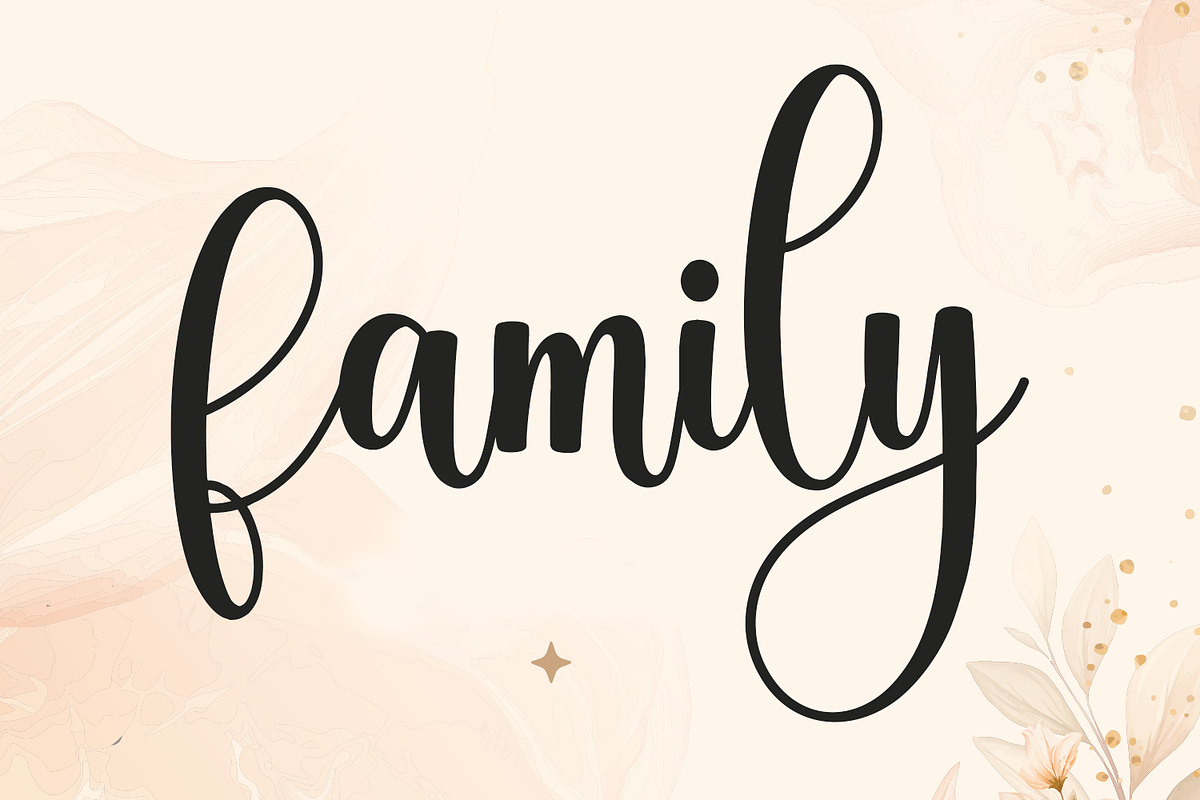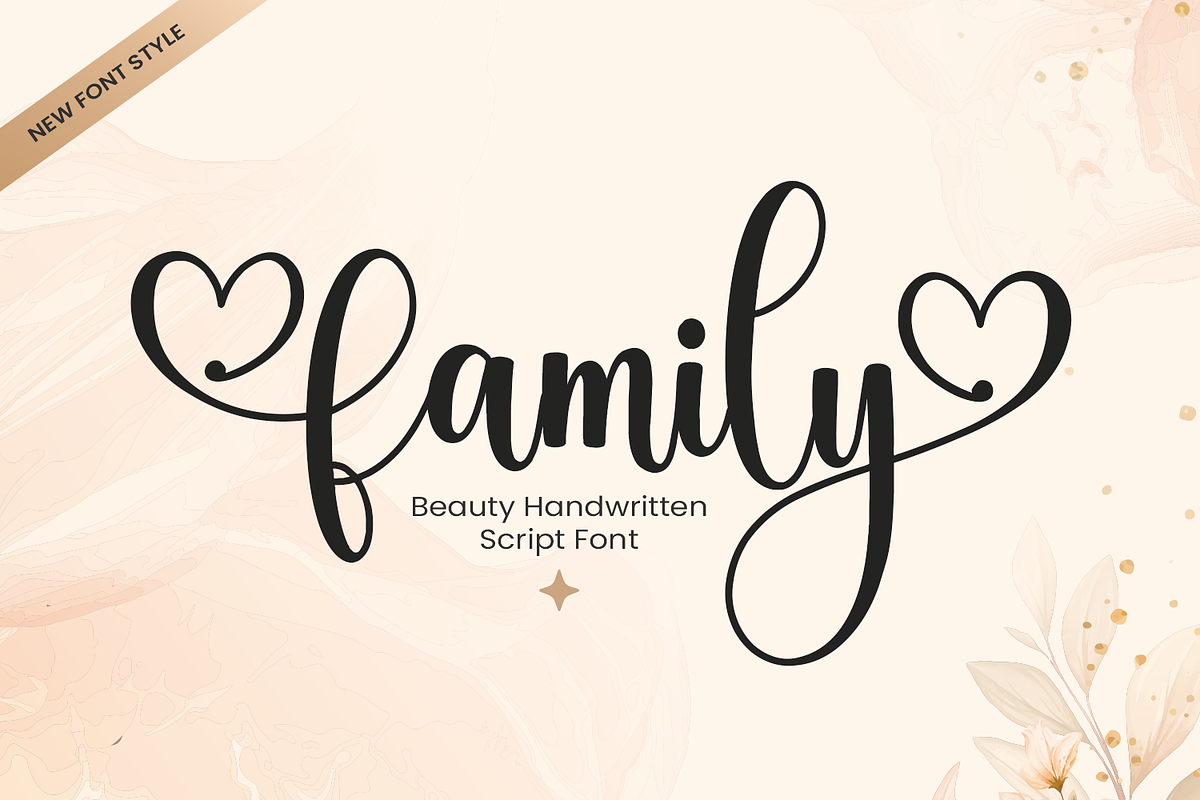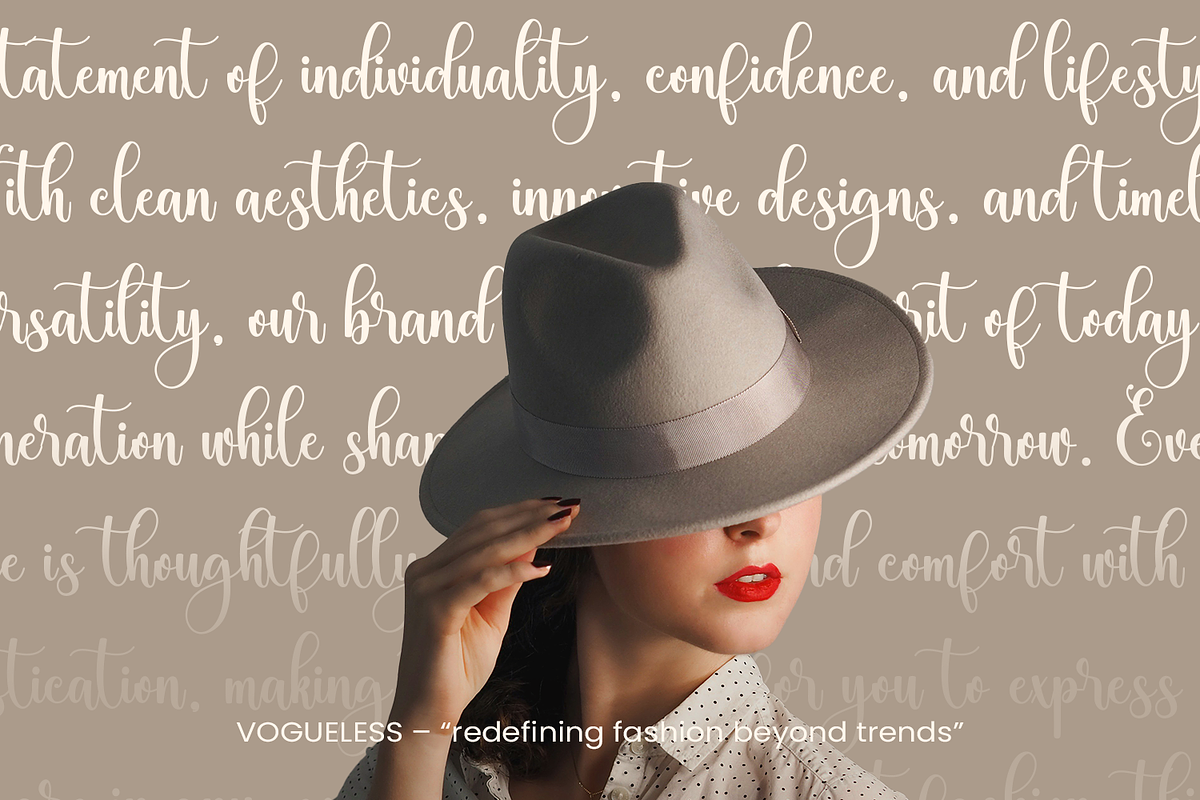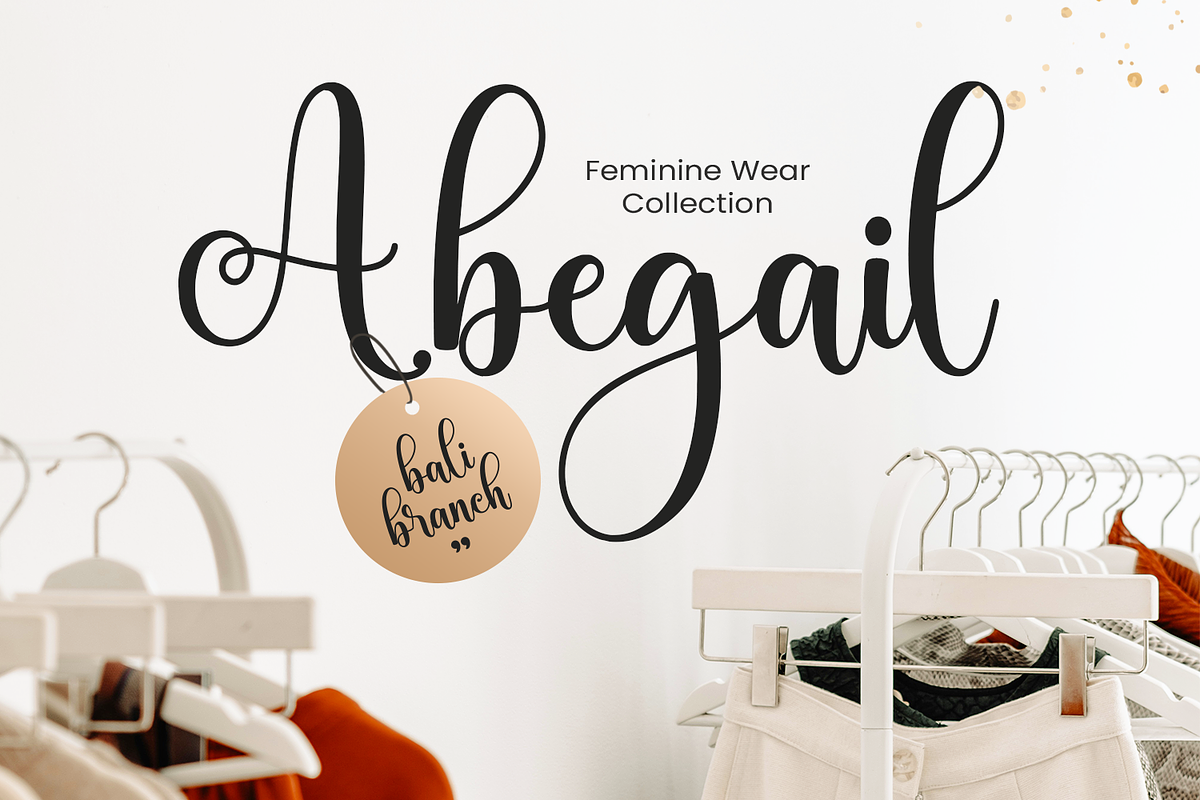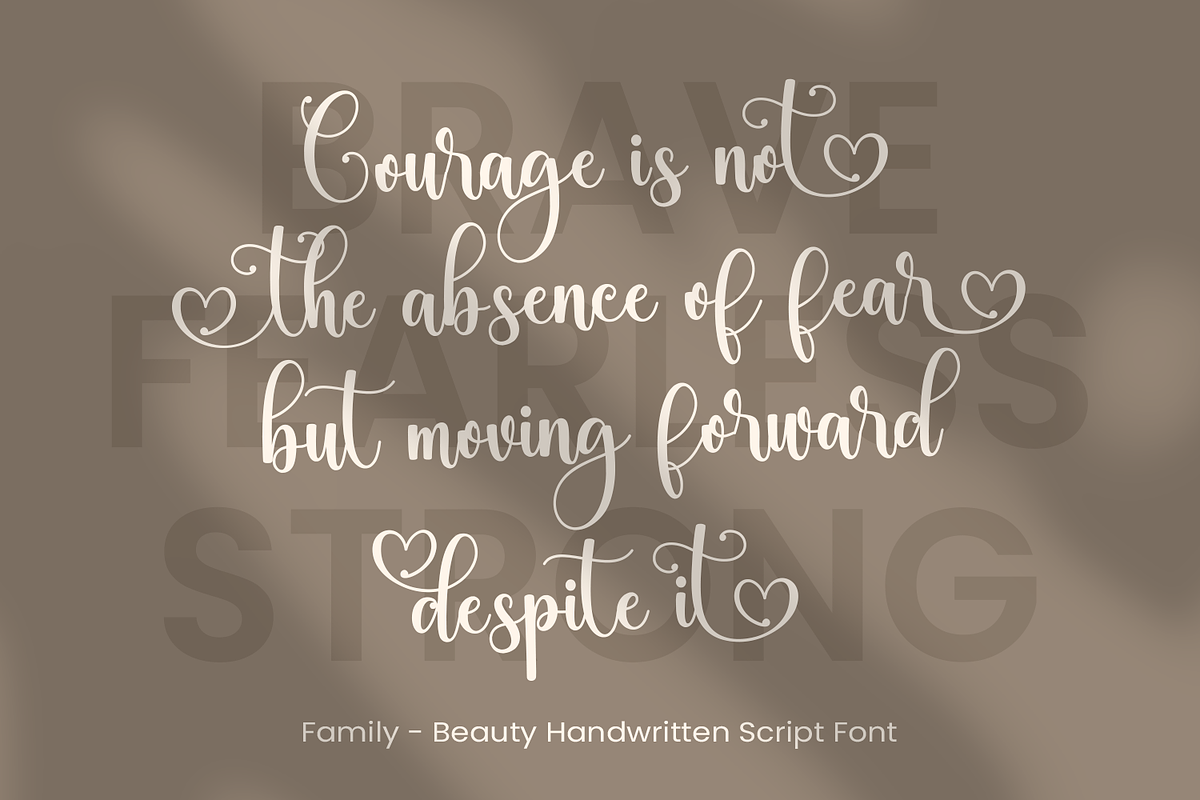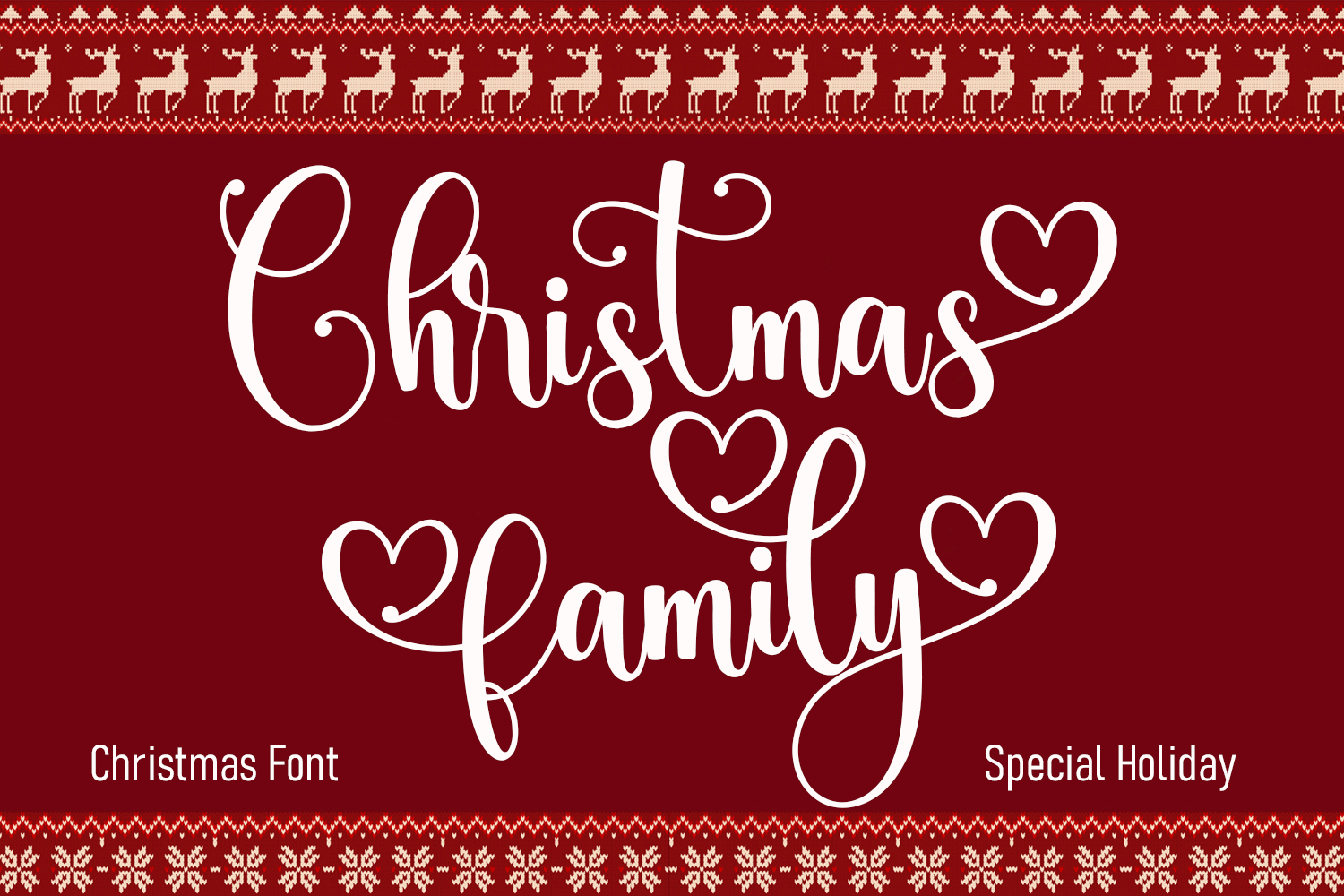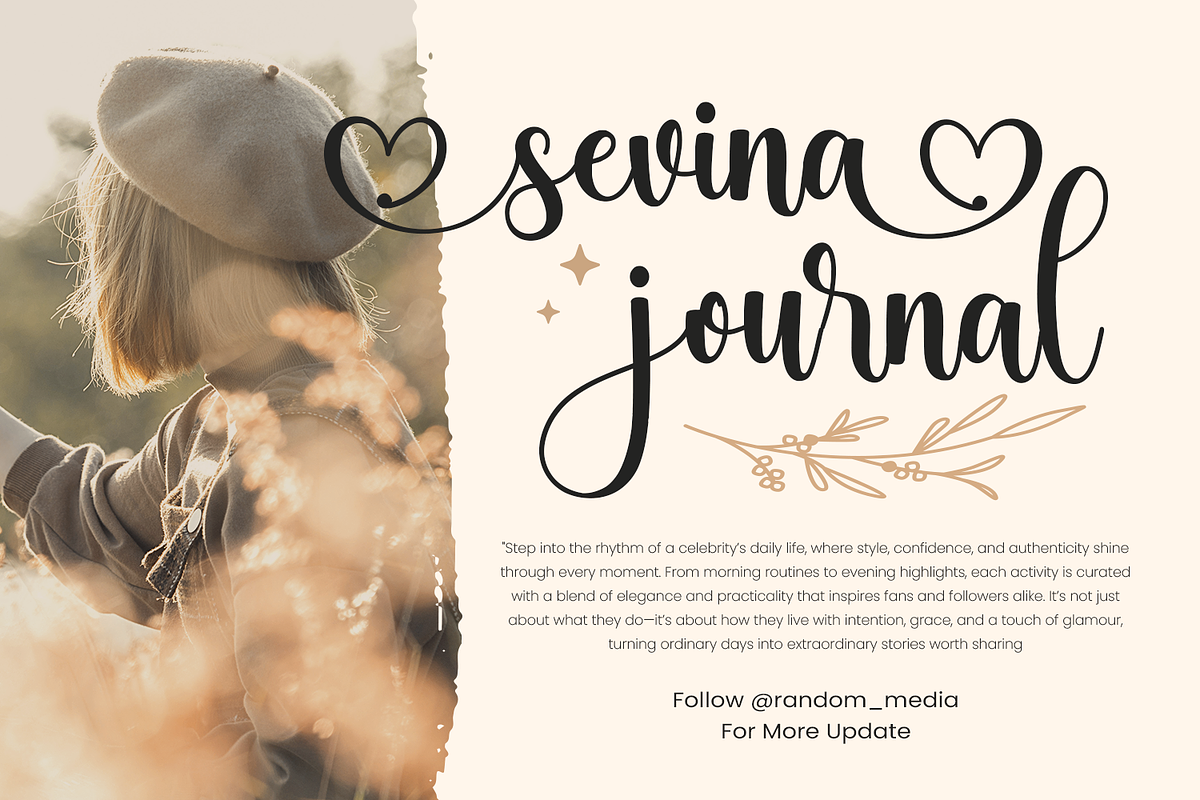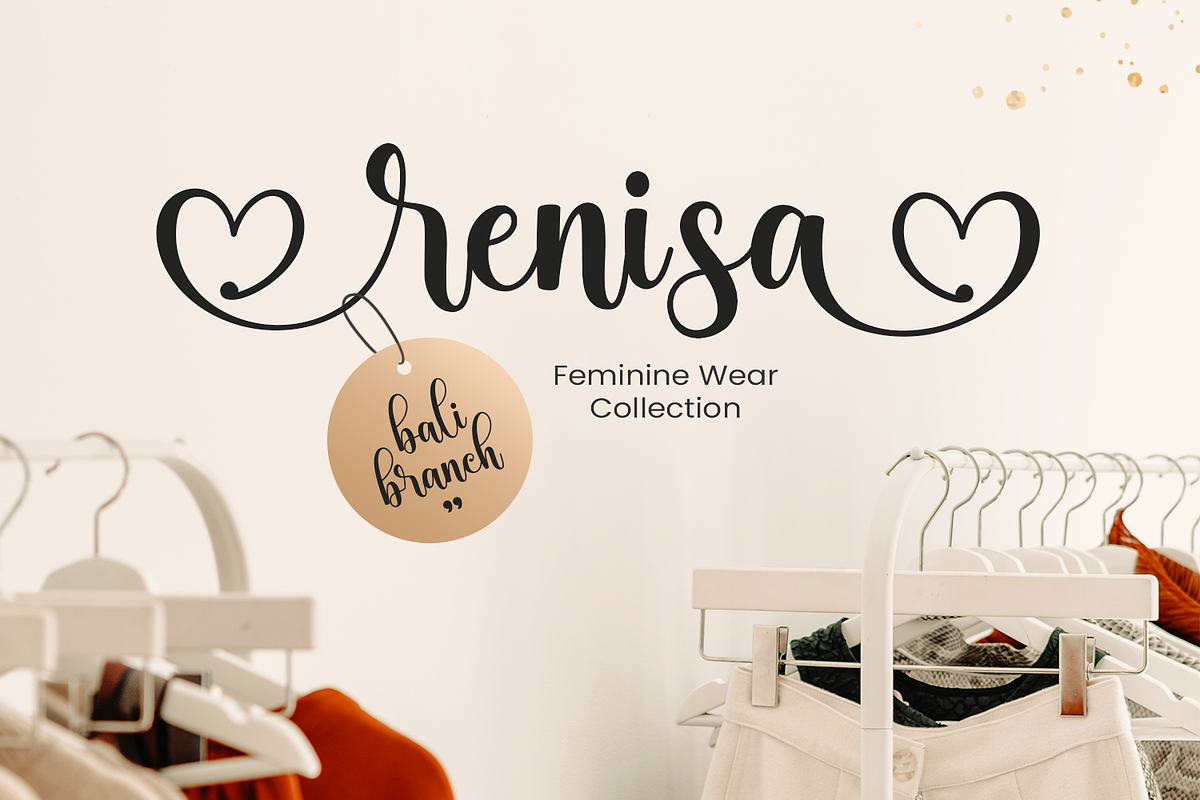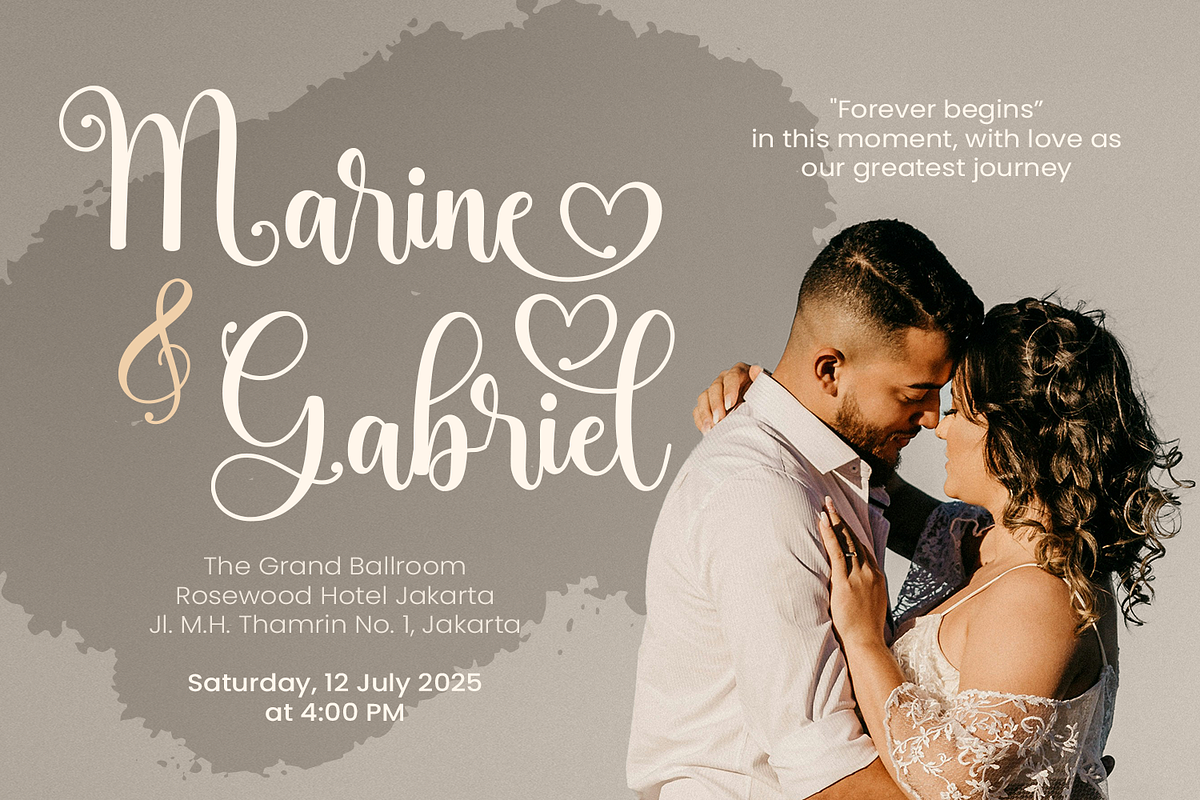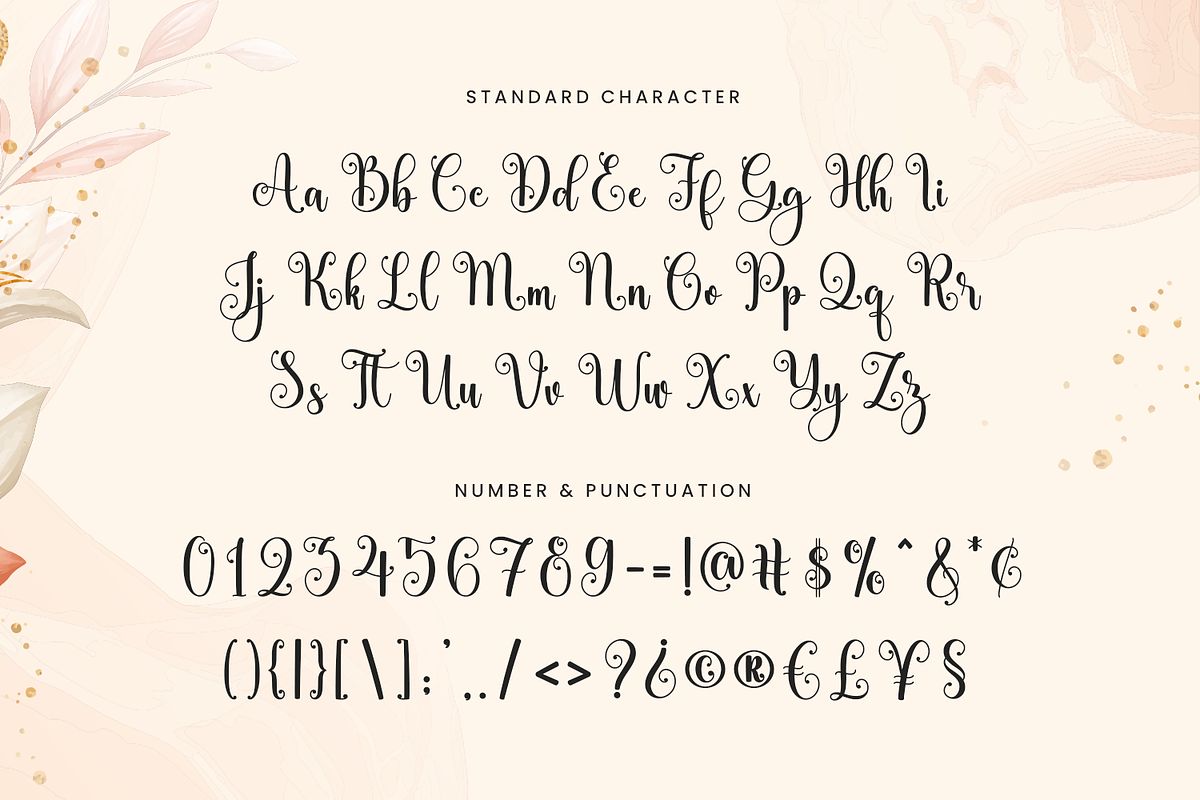
Christmas Family - Christmas Font
Christmas Family – Script Handwritten Christmas Font
Introducing Christmas Family, a warm and charming script handwritten font crafted to bring festive cheer into all your creative projects. Its smooth, flowing strokes and cozy holiday feel make it perfect for Christmas cards, Thanksgiving themes, wedding invitations, birthday designs, and seasonal crafts throughout the year. From winter celebrations to spring, summer, and autumn projects, Christmas Family adds a joyful touch to every design.
Each letter in Christmas Family is designed with beautiful beginning and ending swash tails, giving your text an elegant and decorative look. This makes it especially ideal for Cricut creations, embroidery, DIY crafts, lettering projects, and SVG designs, where graceful details can truly elevate your work.
Packed with many alternate characters and swashes, the font offers limitless stylistic combinations. You can mix and match different letter variations to create unique words, expressive titles, or standout craft pieces—all with a festive handwritten charm.
Let Christmas Family fill your designs with warmth, elegance, and holiday spirit. Add it to your collection today and make every creation feel wonderfully festive!